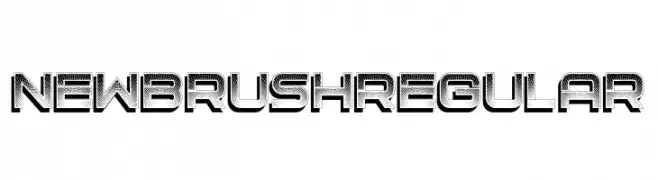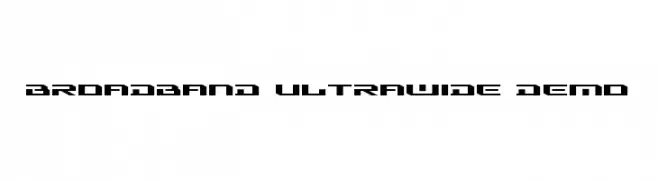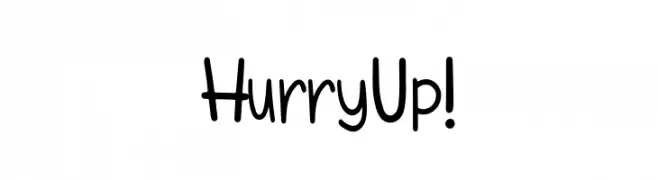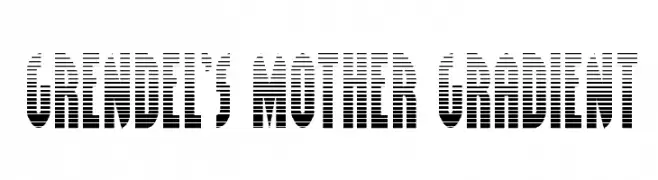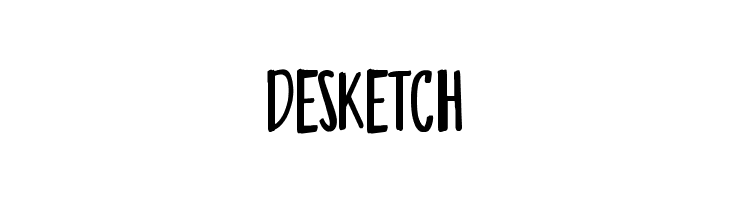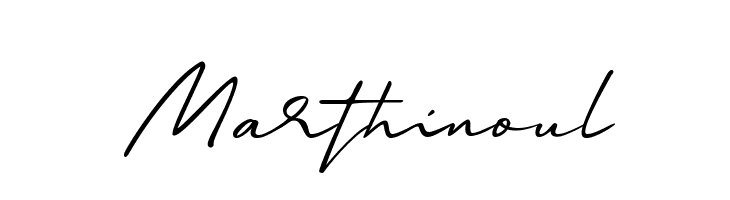
A bold, decorative font with a geometric structure and textured interior pattern.
A bold, rounded, and geometric font with a futuristic style.
A bold, dynamic script font with a modern calligraphic style.
A bold, modern font with angular uppercase and rounded lowercase letters.
A bold, decorative font with a spooky, horror-themed aesthetic.
A diverse set of heart designs ranging from simple outlines to intricate patterns.
A bold, futuristic font with angular, geometric shapes and a modern aesthetic.
A bold, decorative font with a gradient effect created by horizontal lines.
A bold, playful font with whimsical, artistic strokes and exaggerated curves.